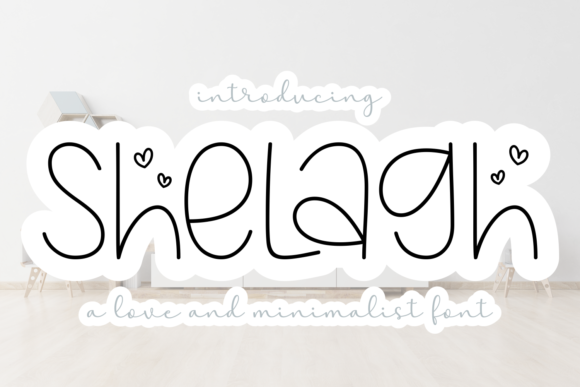
Shelagh Font
Unleash your creativity with Shelagh Font, a charming handwritten font family crafted by Creative Fabrica Fonts. This playful script font dances across your designs with a delightful variety of character styles, creating a unique and captivating look.
Shelagh Font is the perfect companion for those seeking a touch of whimsy and personality in their projects. Its casual yet elegant strokes bring a sense of warmth and intimacy to your designs, making them stand out from the crowd.
Imagine crafting enchanting invitations for your child's birthday party, adorning them with Shelagh Font's cheerful characters. Its playful nature adds a touch of magic, making each invitation a cherished keepsake for your little ones and their friends.
Envision creating personalized baby shower decorations that radiate love and joy. Shelagh Font's gentle curves and playful flourishes add a touch of sweetness to every element, from banners to cupcake toppers. Capture the excitement and anticipation of this special occasion with the perfect font.
Shelagh Font is not limited to personal celebrations. It also shines in business settings. Design captivating logos and branding materials that exude professionalism and a friendly touch. Shelagh Font's versatility allows you to create a cohesive brand identity that resonates with your audience.
Embark on a creative journey with Shelagh Font, and let your imagination soar. Transform your designs into captivating masterpieces, whether you're creating marketing materials, social media graphics, or personalized gifts. Its versatility and charm will leave a lasting impression on your audience.